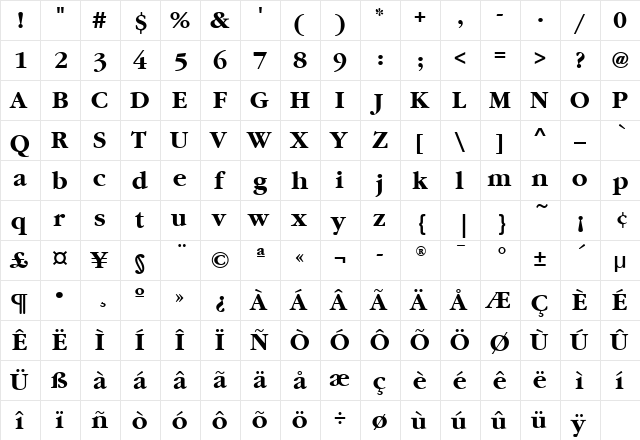
GaramondLitITC Bold
Design Context for GaramondLitITC Typeface
GaramondLitITC offers clean, dependable letterforms without strong stylistic allegiance, making it a practical choice for designers who need flexibility. Its bold stroke weight gives it real presence on the page.
Pro Tip: Use GaramondLitITC in both headline and body roles to test its range before committing to a single application.